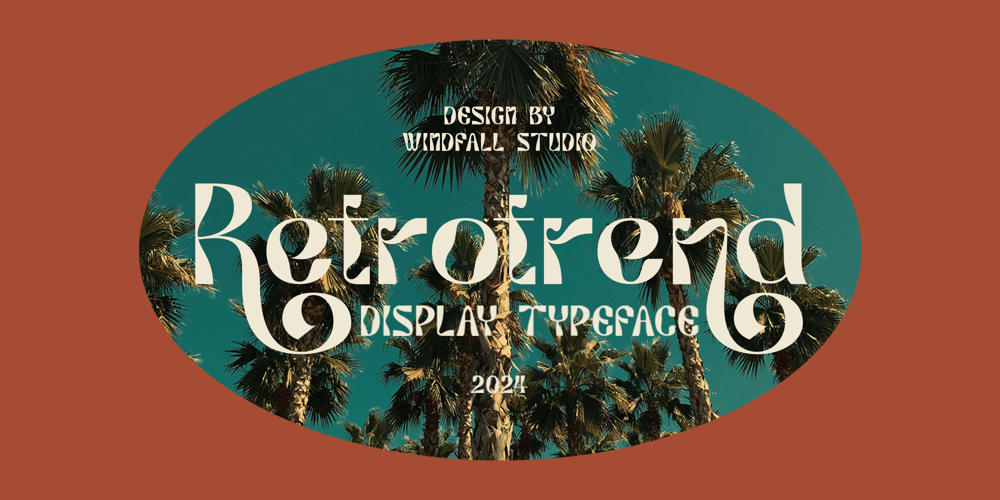
Retrotrend Font Family was designed by Anggia Putri Premitasari and published by Windfall Studio. Retrotrend contains 1 styles and family package options. Retrotrend is a vintage font that combines groovy and psychedelic styles. It is designed to take you back to the nostalgic era of the 80s. Its unique shape provides opportunities for you to use it in various styles, especially in pop art and retro themes